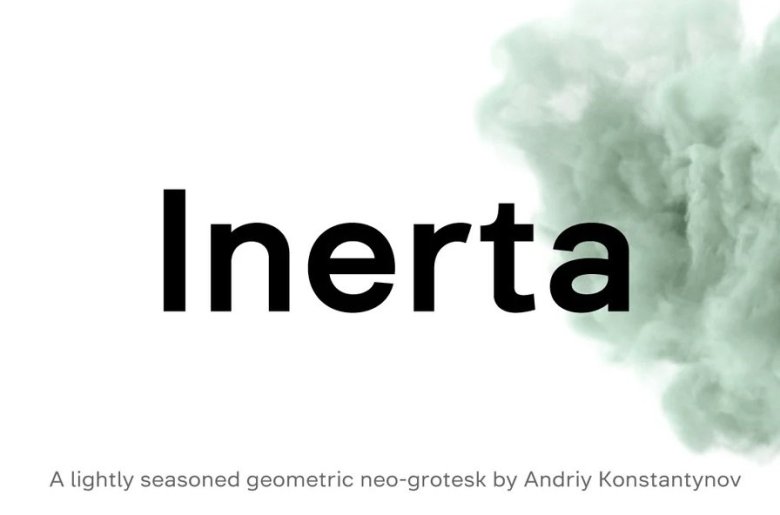
Inerta Font
This font is designed with an elegant, clean and classy mood. It is designed to work perfectly in UI/UX applications, and to remain readable in smallest font sizes. With over 950 glyphs, the font family offers extensive language support and many typesetting options to choose from.
The typeface can be customised with several sets of alternate glyphs and OpenType features. The Cyrillic part contains alternates for Bulgarian as well as alternative Ukrainian forms.